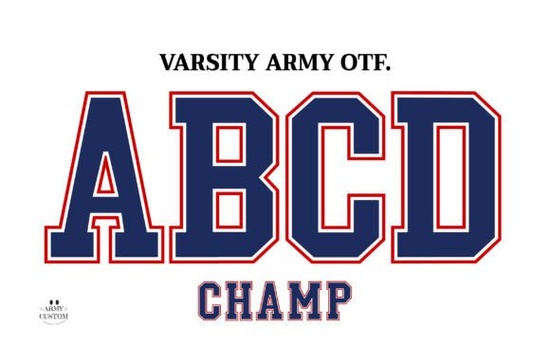
If you're looking for a bold, spirited typeface that brings collegiate energy to t-shirts, posters, or school spirit merch, the Varsity Army Font is a smart choice. It’s not just another sports font it’s a color OpenType font designed with authentic university lettering in mind, where each glyph carries the weight of tradition, team pride, and campus life. Whether you’re designing for a high school pep rally, a college alumni event, or a small business launching a Back to School collection, this font adds instant recognition and warmth.
What makes Varsity Army Font different from other sporty fonts?
Most athletic fonts lean heavily into sharp angles or aggressive serifs but Varsity Army Font balances structure and personality. Its clean, slightly rounded letterforms echo classic varsity jackets and vintage gym signage, while the built-in color layers (red, navy, gold, and white) give it visual depth without needing manual shading. Unlike monochrome fonts that require extra steps to add dimension, this one delivers ready-to-use color right out of the box no gradients, no layering tricks needed.
It’s also intentionally nostalgic without feeling dated. You’ll notice subtle texture cues and consistent stroke weights that mimic hand-painted banners or screen-printed locker room signs not digital perfection, but intentional craft.
Who’s using Varsity Army Font right now?
- Print-on-demand sellers adding school-themed designs to Etsy or Redbubble especially during August and September.
- Small businesses creating custom spirit wear for local teams, booster clubs, or PTA fundraisers.
- Teachers and school staff designing bulletin boards, welcome banners, or graduation announcements.
- Crafters making personalized back-to-school tote bags, iron-on patches, or vinyl decals.
You’ll often see it paired with plaid patterns, striped borders, or simple sans-serif companions like pairing Back to School Plaid for layered, textured layouts. It also works well alongside other collegiate-style assets like pennants, mascot silhouettes, or chalkboard-style frames.
How to get the most out of it
Start simple. Try typing “GO [TEAM]” or “[SCHOOL NAME] ’24” in Photoshop using the color font then adjust tracking and size to match real-world signage proportions. For print projects, keep minimum sizes in mind: 48 pt works well for t-shirt chest prints; 120 pt or larger gives impact on posters or yard signs.
If you’re layering text over photos (like a grad photo with their school name), use the included PNGs instead of the OTF they’ll preserve crisp edges and color fidelity at any resolution. And don’t forget to check contrast: red-on-navy reads clearly, but light gold on white may need a subtle drop shadow for legibility in smaller sizes.
A quick checklist before you design
- ✅ Confirm your software supports color OTF fonts (Photoshop CC 2017+ / Illustrator CC 2018+)
- ✅ Use PNG files if working in Cricut, Canva, or non-Adobe tools
- ✅ Test readability at your intended output size especially for apparel or signage
- ✅ Pair with complementary textures (plaid, linen, chalkboard) for richer context
If you’ve used Varsity Army Font in a recent project, try swapping one word in your layout like changing “TEAM” to “FAMILY” or “CLASS OF” and see how quickly it shifts the tone from competitive to celebratory. That flexibility is why it keeps showing up in real-world designs, season after season.